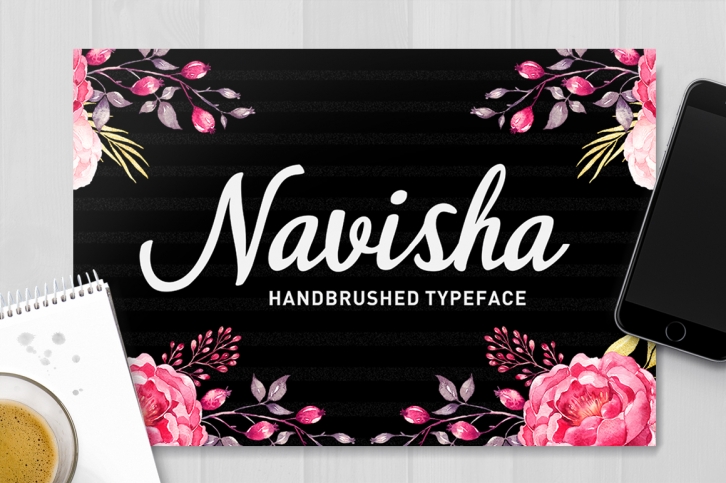
Navisha Script is a beautiful font that was designed by Typehill. It's a great choice for designers and creatives who need such a font. It was released on November 15, 2017 and the file size is 4.71 MB. Navisha Script may give a more youthful, expressive and casual look to your project. It is a very beautiful, refined, elegant, and high-quality font.